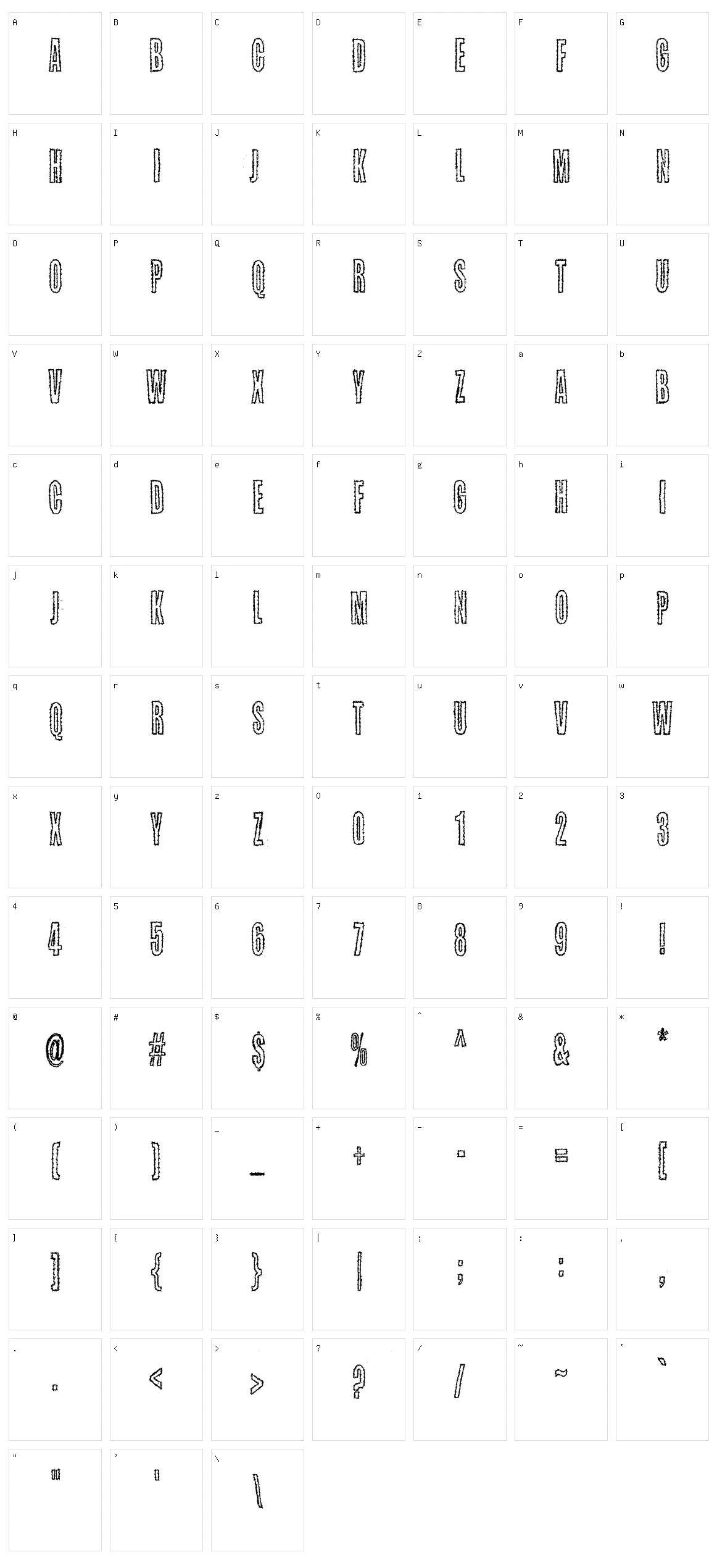
The free font Kaktuspiste is carefully designed by junkohanhero, showcasing a thoughtful balance of creativity and usability and falls under the Eroded font style. When you download the ZIP file, it contains only 90.98 KB of font files, making it lightweight and quick to download. Please review the license details below to understand permitted usage and distribution rights. If license information is not available, we recommend using this font for personal projects only or contacting the author directly for commercial usage permissions.